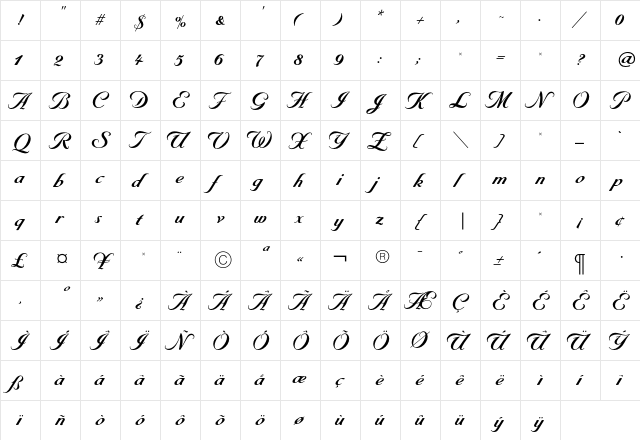
ByronRR Regular
Design Context for ByronRR Typeface
ByronRR is a composed and adaptable typeface that performs quietly and consistently across a wide range of design contexts.